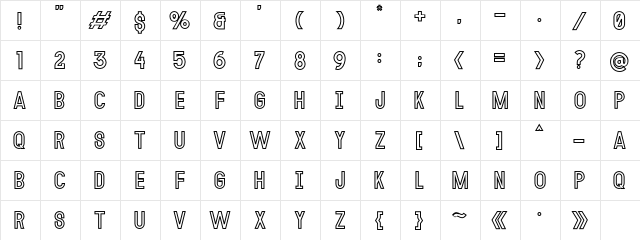
MODULAR Outline 14
Design Context for MODULAR Typeface
MODULAR is built around its visual character rather than neutral utility — its distinctive forms are designed to make an impression at display sizes.
Font Pairing: Pair with a clean neutral sans-serif for body copy to let MODULAR's character lead without overwhelming the composition.
Pro Tip: Use MODULAR exclusively at display sizes — it was designed to be seen, not read at length. Let a neutral companion handle body copy.